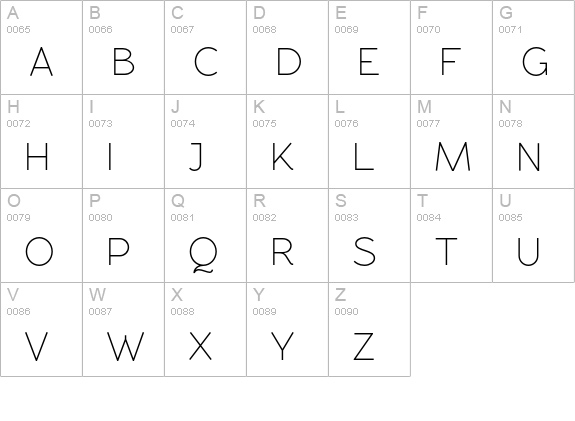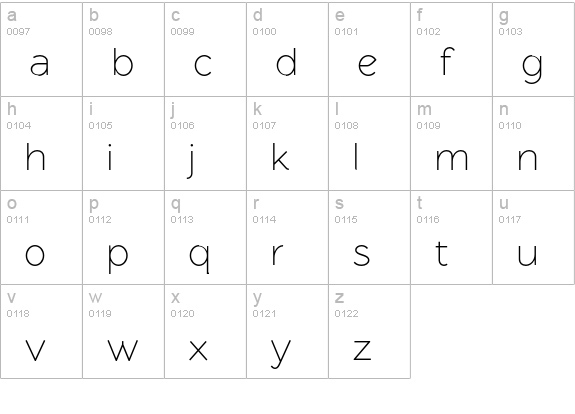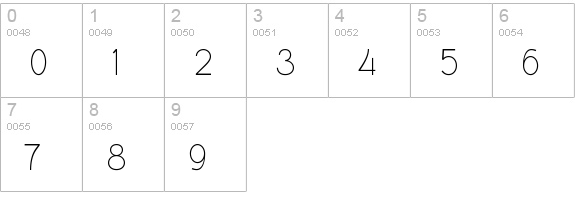
RawengulkSans Font Details
RawengulkSans is a versatile and modern font that effortlessly combines elegance with a touch of playfulness. It is a typeface that stands out from the crowd, making it the perfect choice for designers and creatives who want to make a statement. With its clean and legible letterforms, RawengulkSans is ideal for a wide range of design projects, including branding, packaging, advertising, and more. Its balanced proportions and well-crafted curves ensure that every character has a harmonious and pleasing appearance, whether used in large headlines or small body text. One of the standout features of RawengulkSans is its extensive character set, which includes a wide range of glyphs and special characters. This makes it a great choice for multilingual projects or when you need to add a unique touch to your designs. But what sets RawengulkSans apart from other fonts is that it is free. Yes, you read that right! This stunning typeface is freely available to download at FontsMarket.com. This means that you can use it in both personal and commercial projects without any restrictions or fees. So whether you're a student, a freelancer, or a professional designer, RawengulkSans is a font that you can rely on without breaking the bank. Its seamless legibility, contemporary style, and generous licensing make RawengulkSans a must-have font for anyone looking to elevate their designs. Download it today from FontsMarket.com and unleash your creativity with this incredible free font.